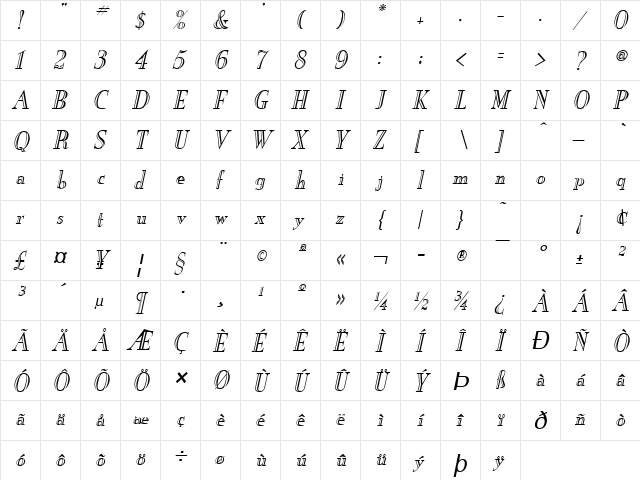
New England-Engraved Italic
Design Context for New England-Engraved Typeface
New England-Engraved brings ornamental detail and strong personality to headlines and identities, where visual impact matters more than quiet functionality. The dynamic lean of this cut emphasises speed and emphasis in any layout.
Font Pairing: Pair with a clean neutral sans-serif for body copy to let New England-Engraved's character lead without overwhelming the composition.
Pro Tip: Use New England-Engraved exclusively at display sizes — it was designed to be seen, not read at length. Let a neutral companion handle body copy.